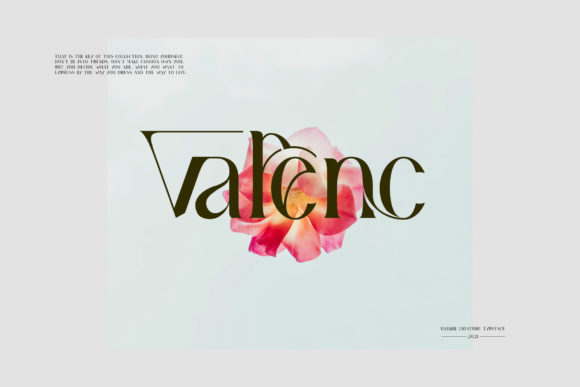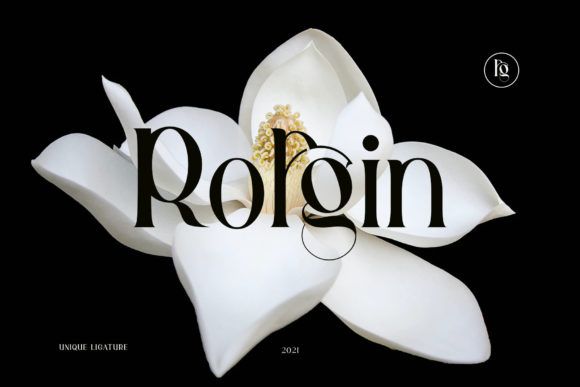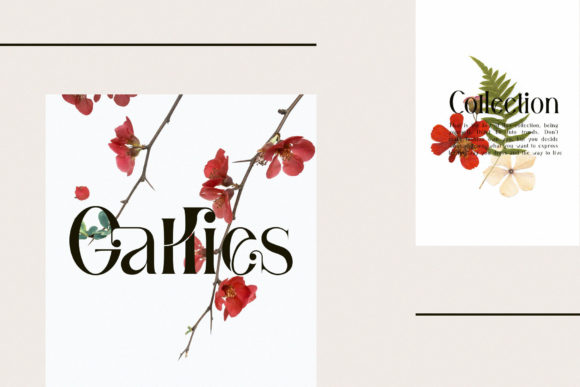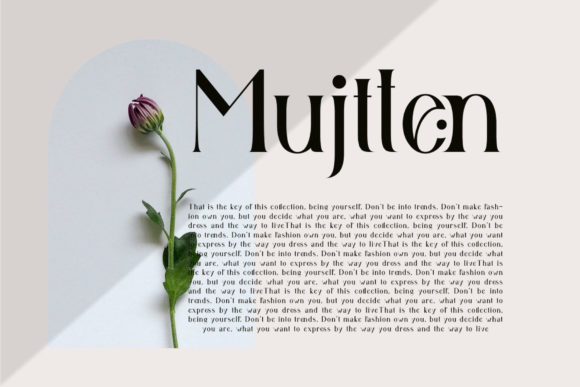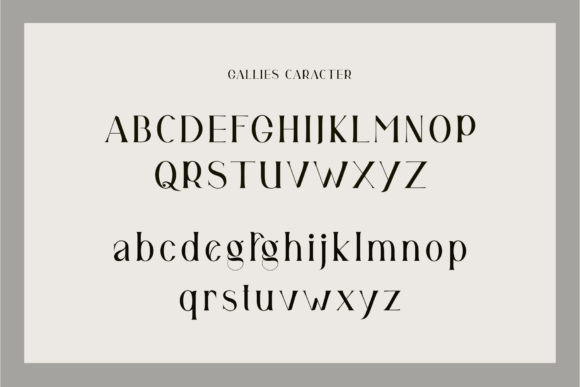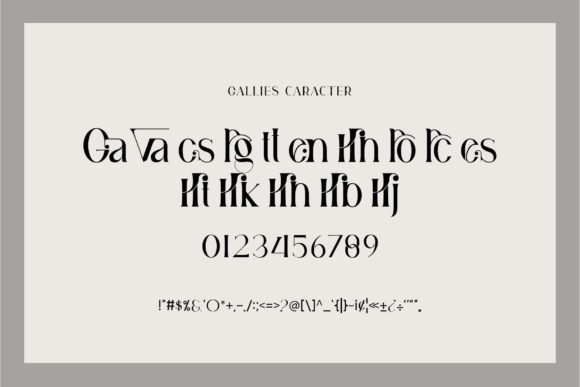
Gallies Font: Elevate Your Designs with Elegance and Sophistication
In the world of typography, fonts play a crucial role in making or breaking a design. A well-chosen font can instantly elevate your creation, making it more appealing and engaging to your audience. If you’re a designer, craft, or simply someone who appreciates beautiful typography, you’re in luck. Introducing Gallies Font, an elegant and clean serif font that’s sure to take your designs to the next level.
What is Gallies Font?
Gallies is an elegant and clean serif font that’s designed to make a strong visual impact. With its simple yet sophisticated design, this font is perfect for a wide range of applications, from branding and advertising to packaging and digital media. Whether you’re looking to create a luxurious feel or simply want to add a touch of elegance to your design, Gallies Font is the perfect choice.
Key Features of Gallies Font
So, what makes Gallies Font so special? Here are just a few of its key features:
- Elegant and Clean Design: Gallies Font boasts a sleek and sophisticated design that’s perfect for creating high-end designs.
- Strong Visual Effect: Despite its simplicity, Gallies Font has a strong visual effect that will instantly grab the attention of your audience.
- Versatile: This font is perfect for a wide range of applications, from digital media to print materials.
- Easy to Read: Gallies Font is designed to be easy to read, making it perfect for body text and other long-form content.
Who is Gallies Font for?
Gallies Font is perfect for anyone who wants to add a touch of elegance and sophistication to their designs. Here are just a few examples of who might benefit from using this font:
- Graphic Designers: Whether you’re working on a branding project or creating marketing materials, Gallies Font is a great choice.
- Crafters: If you’re a crafter who loves to create handmade products, Gallies Font is perfect for adding a touch of elegance to your packaging and marketing materials.
- Digital Media Professionals: Whether you’re creating social media graphics or working on a website design project, Gallies Font is a great choice.
How to Use Gallies Font
Using Gallies Font is easy. Here are just a few tips to get you started:
- Pair it with Other Fonts: Gallies Font pairs well with a wide range of other fonts, so don’t be afraid to experiment.
- Use it for Headings and Titles: Gallies Font is perfect for headings and titles, where its elegant design can really shine.
- Experiment with Different Colors: Gallies Font looks great in a wide range of colors, so don’t be afraid to try out different options.
| Font Name | Gallies Font |
| Author | humaira_std |
In conclusion, Gallies Font is an elegant and clean serif font that’s perfect for anyone who wants to add a touch of sophistication to their designs. With its strong visual effect and versatile design, this font is sure to become a staple in your design toolkit. So why wait? Download Gallies Font today and start creating stunning designs that will leave a lasting impression on your audience.
Key Benefits:
- Elegant and clean serif font design
- Strong visual effect
- Versatile and easy to read
- Perfect for a wide range of applications
Whether you’re a designer, crafter, or simply someone who appreciates beautiful typography, Gallies Font is a great choice. So why not give it a try today and see the difference it can make in your designs?